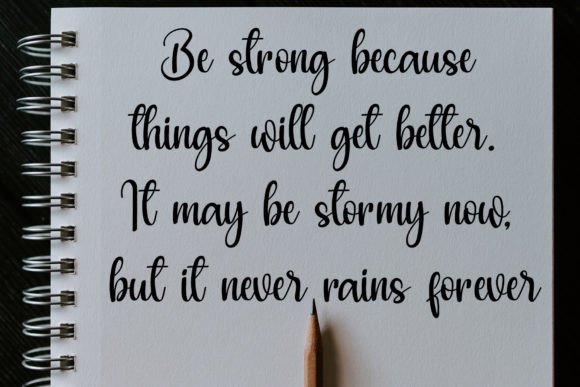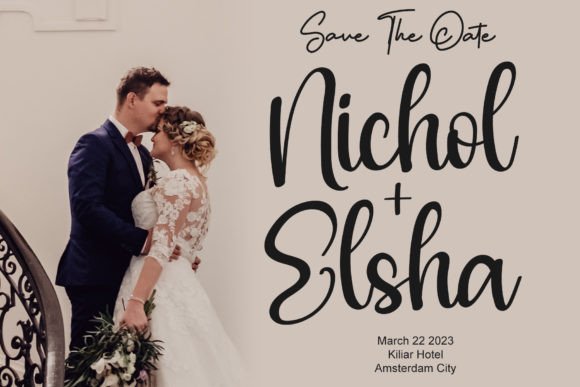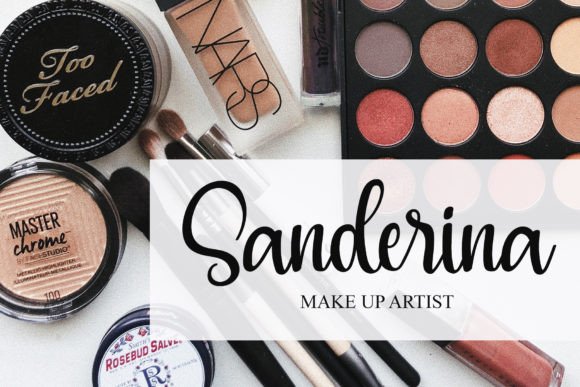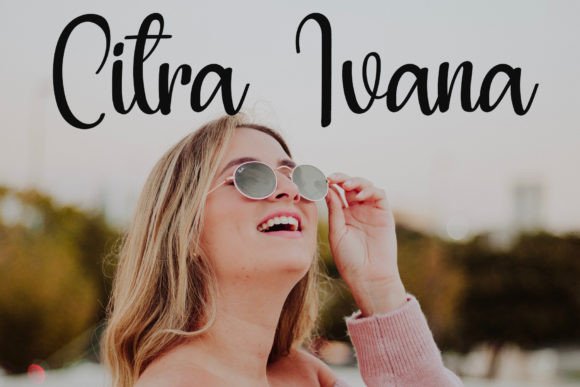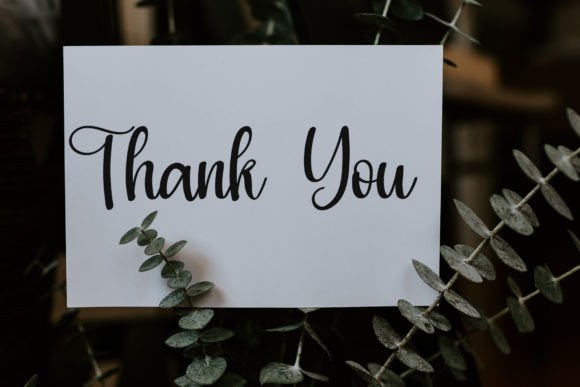
Clover Font: Elevate Your Designs with Timeless Elegance
In the world of typography, a well-crafted font can make all the difference in transforming a design from ordinary to extraordinary. For designers and crafters seeking a stylish and sophisticated touch, the Clover Font is an exceptional choice. This stunning handwritten font boasts a contemporary atmosphere and impeccable form, drawing inspiration from timeless classic calligraphy.
The Essence of Clover Font
Clover is a beautifully balanced and varied font, meticulously designed to enhance the beauty of your projects. Its unique blend of classic and modern elements makes it an versatile choice for a wide range of design applications, from branding and advertising to packaging and digital media.
Key Features of Clover Font
- Handwritten style: Clover Font features a stylish handwritten script, giving your designs a personal and elegant feel.
- Contemporary atmosphere: With its clean lines and modern aesthetic, Clover Font is perfect for designers looking for a fresh and sophisticated look.
- Impeccable form: The font’s precise construction ensures that it remains legible and visually appealing, even at smaller sizes.
- Balanced and varied: Clover Font offers a range of characters and ligatures, allowing you to create unique and dynamic text arrangements.
Inspiration from Timeless Classic Calligraphy
Clover Font’s design is rooted in the rich tradition of classic calligraphy. The font’s creators drew inspiration from the elegant letterforms and flowing connections of traditional calligraphy, infusing them with a modern twist. The result is a font that feels both nostalgic and cutting-edge.
Whether you’re a professional designer or a crafty DIY enthusiast, Clover Font is an excellent addition to your typographic toolkit. Its versatility and beauty make it suitable for a wide range of projects, including:
- Branding and logos: Create stunning brand identities with Clover Font’s elegant script.
- Advertising and marketing: Use Clover Font to add a touch of sophistication to your ad campaigns and marketing materials.
- Packaging and labeling: Elevate your product packaging with Clover Font’s stylish and modern aesthetic.
- Digital media: Add a personal touch to your digital content, from social media graphics to blog posts and website headers.
Tips for Using Clover Font
To get the most out of Clover Font, consider the following tips:
- Experiment with sizes and colors: Clover Font looks stunning in a range of sizes and colors, so don’t be afraid to try out different combinations.
- Mix and match with other fonts: Combine Clover Font with other fonts to create visually interesting and dynamic text arrangements.
- Pay attention to spacing and kerning: Adjust the spacing and kerning to ensure that your text looks balanced and harmonious.
In conclusion, Clover Font is a stunning and versatile font that can elevate your designs to new heights. Its unique blend of classic and modern elements, combined with its impeccable form and balanced design, make it an excellent choice for designers and crafters alike. Whether you’re looking to create stunning brand identities, sophisticated advertising materials, or beautiful packaging, Clover Font is the perfect tool for the job.